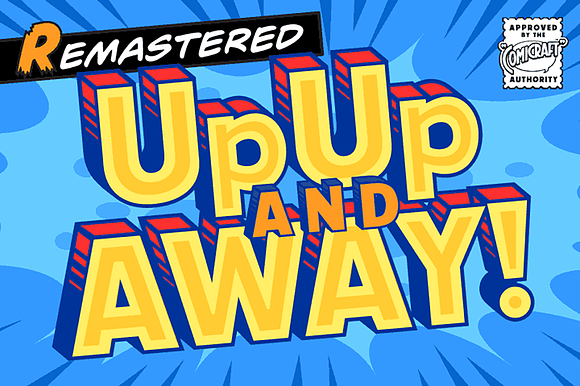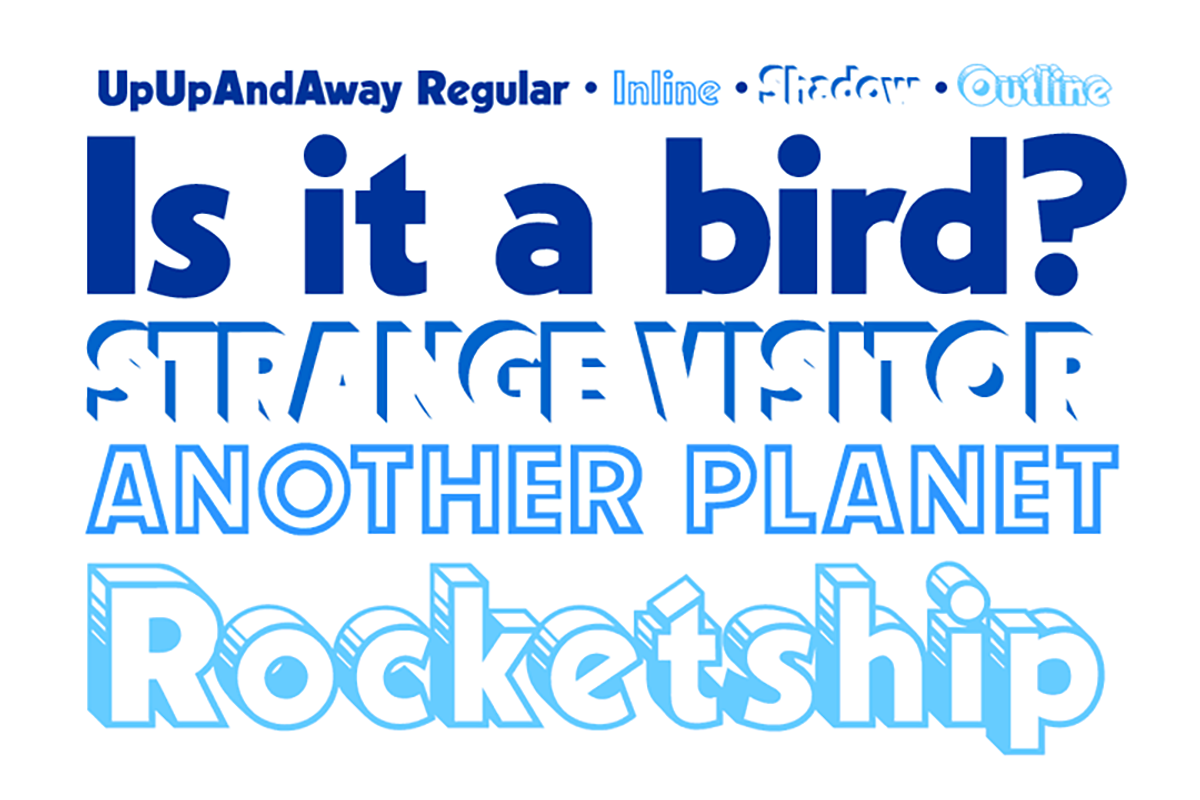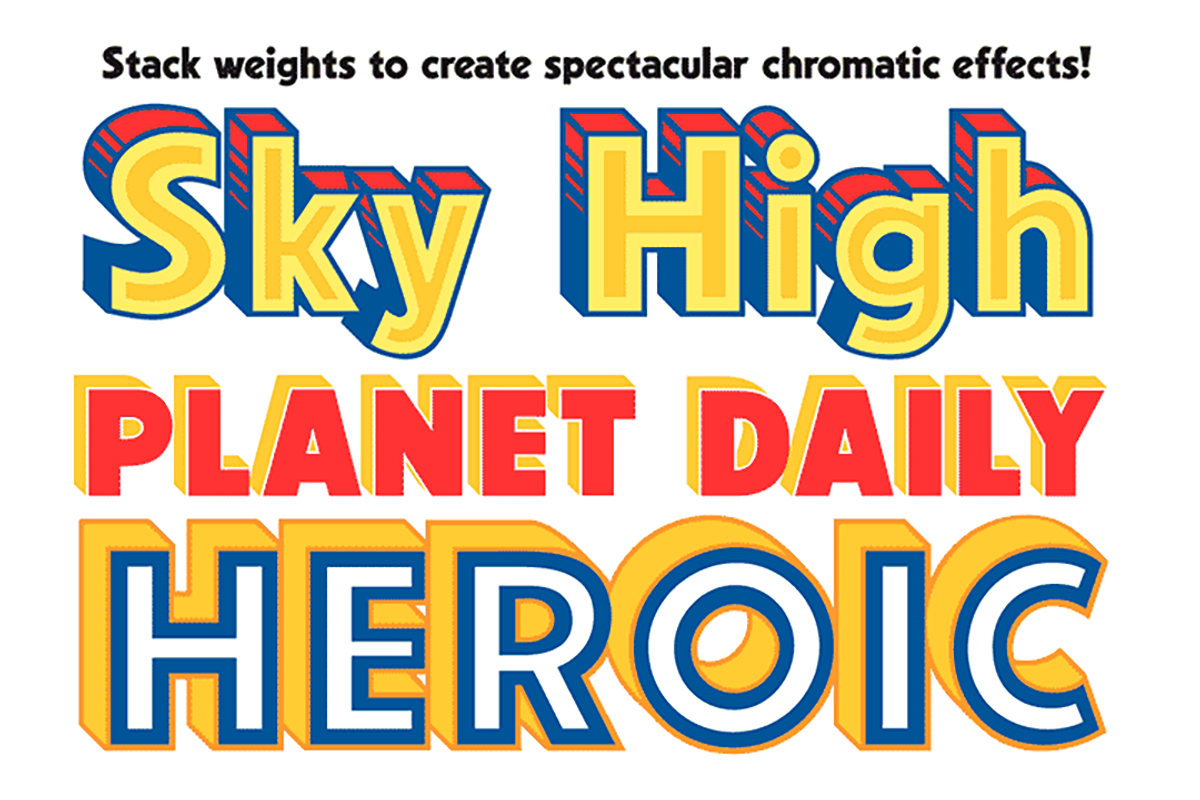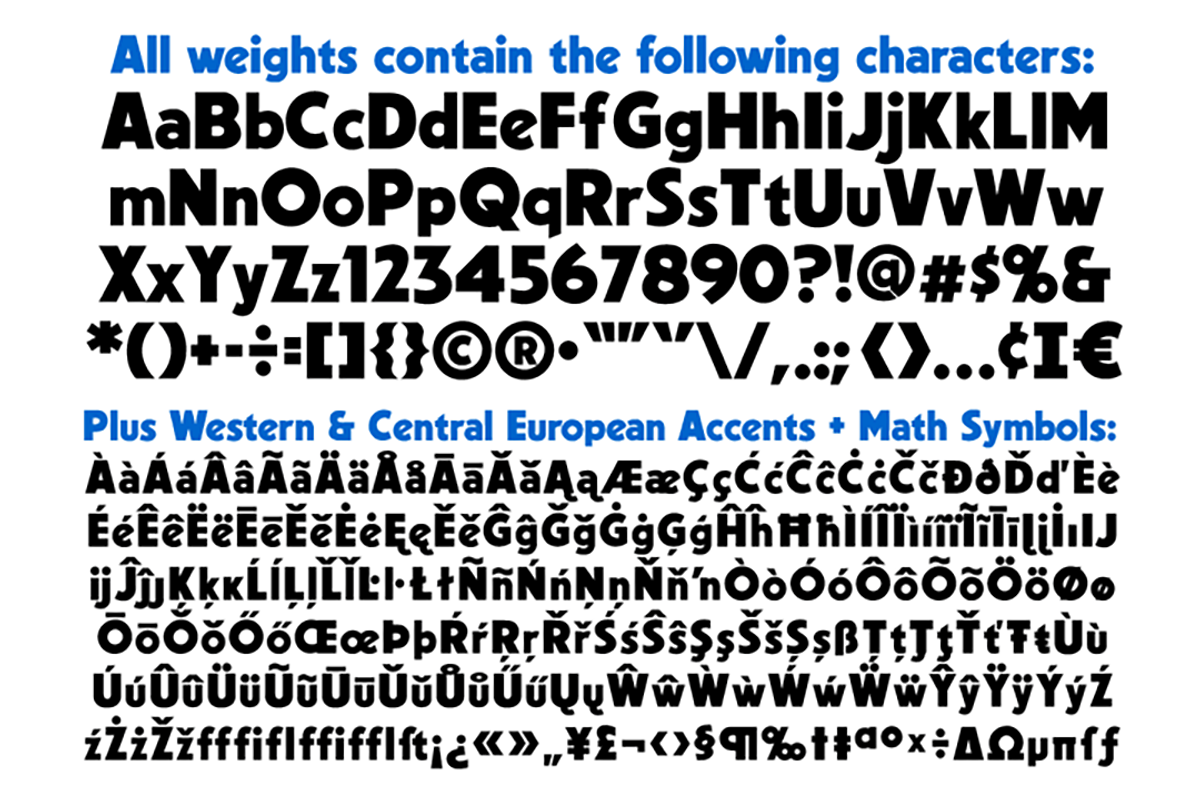
Up Up and Away
Is it a Bird? Is it a Plane? Is it a Rocket? No it's another Super Font from those awfully nice chaps at Comicraft. Faster than a speeding Option 8, Up, Up and Away can see through 'O's, jump Capital T in a single bound, and rescue caps dropped from the tallest ascenders. There isn't a more heroic or x-heighting font in our catalog and it's as wholesome as truth, justice and mom's apple pie. It will even help you make Mom a A HREF=" target="blank"birthday card!/A!
Up Up and Away by Comicraft Fonts fits naturally into Branding, posters, packaging, typography.